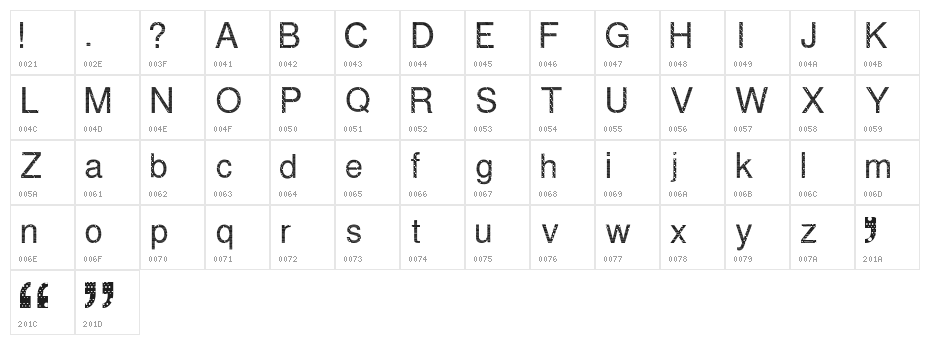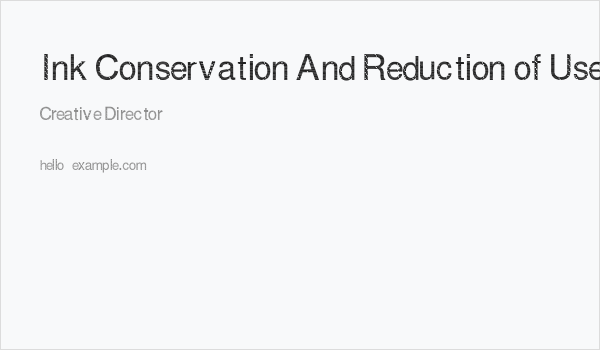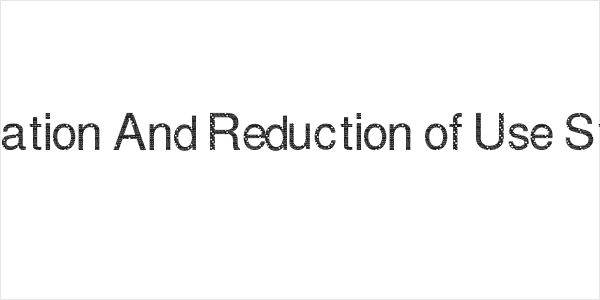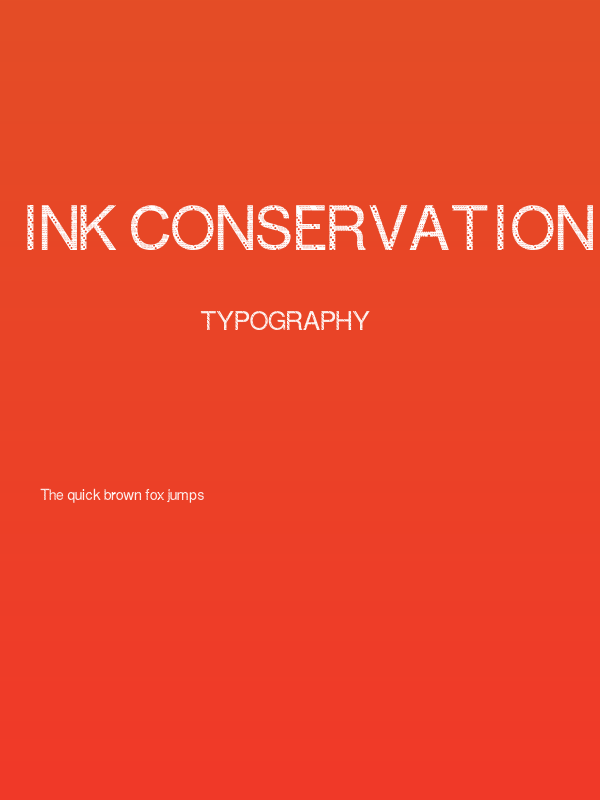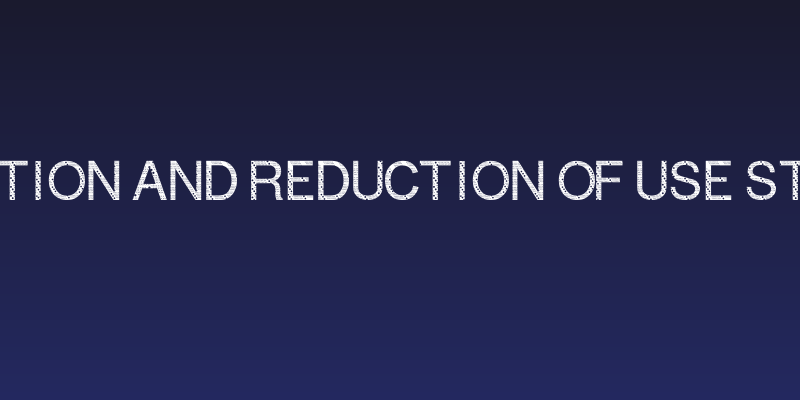
Ink Conservation And Reduction of Use Strategic Font Font
Ink Conservation And Reduction of Use Strategic Font Description
This font features a unique design characterized by its strategic use of ink-saving techniques. Each character is composed of a series of dots, creating a perforated appearance that reduces ink usage while maintaining legibility. The uppercase and lowercase letters are consistent in style, with a modern and minimalist aesthetic. The font's innovative approach makes it ideal for environmentally conscious projects, offering a balance between style and sustainability. The characters are evenly spaced, ensuring readability across various applications.
| Use Case | Logos, Headlines, Eco-friendly projects |
| Proposed Projects | Ideal for eco-friendly branding, sustainable packaging, and digital media where ink conservation is a priority. |